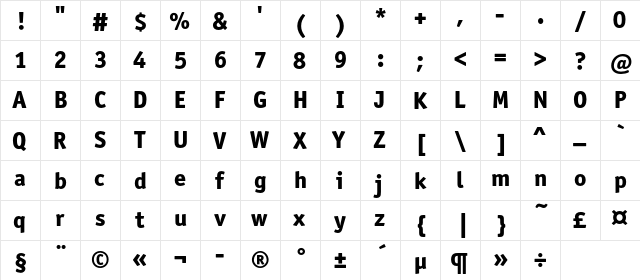
OfficinaSansExtraBoldC Regular Font Preview
OfficinaSansExtraBoldC Regular
Design Context for OfficinaSansExtraBoldC Typeface
OfficinaSansExtraBoldC is a composed and adaptable typeface that performs quietly and consistently across a wide range of design contexts. Its bold stroke weight gives it real presence on the page.